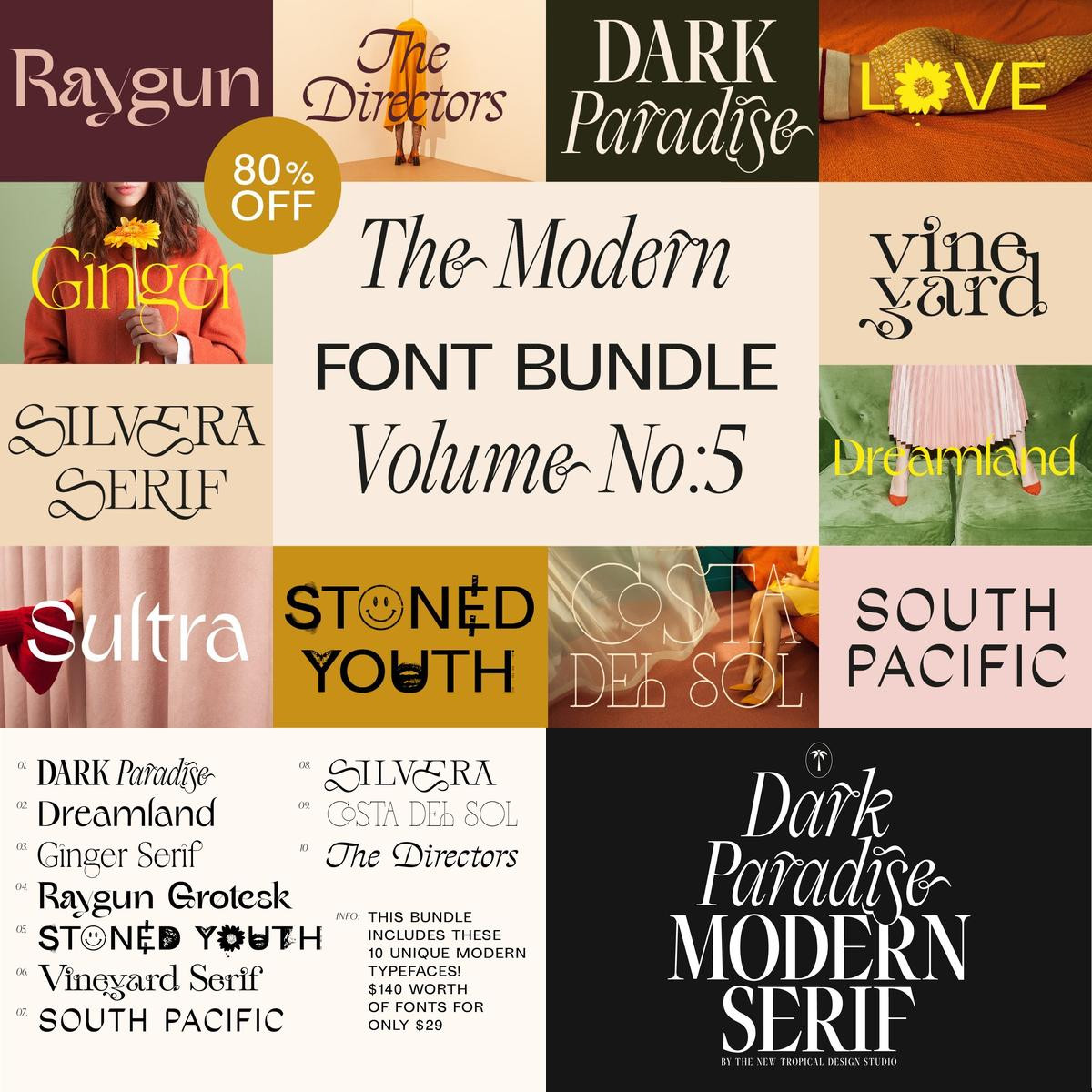
This is the 5th instalment of the Modern Font Bundle. Another 10 unique and exciting top selling fonts for only $29! This isnt some regular bundle that you see that packed full of boring filler fonts to make it look like a good deal. This is 10 memorable and stylish typefaces that took years to make. You have classy serifs, ornate italics, bold sans serifs and much more. Many of these typefaces have loads of alternate letters and ligatures to easily level up your type game. A lot of time and love went into these fonts and i hope you enjoy them.